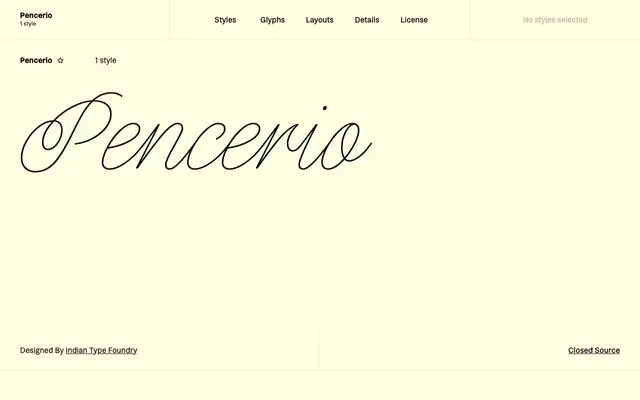
Pencerio
A monolinear formal script by Manushi Parikh, adapting Spencerian penmanship into a single hairline weight with ornate capitals and a large x-height.
Rather than reproducing the characteristic thick-thin contrast of traditional Spencerian scripts, this face strips the letterforms back to thin, monolinear strokes throughout — preserving the slope and ornamental loops of the historical model without the pressure-driven shading. Capital letters carry multiple loops, swells and swirls, with several featuring long descending swash elements that shape strong word silhouettes. A character set of 675 glyphs includes a substantial bank of alternates and ligatures accessible via standard OpenType features, making it suited to calling cards, invitations and certificates.
Pencerio is a monolinear formal script based on Spencerian penmanship, with hairline strokes and no contrast — placing it firmly in the script category as a formal, calligraphic script.